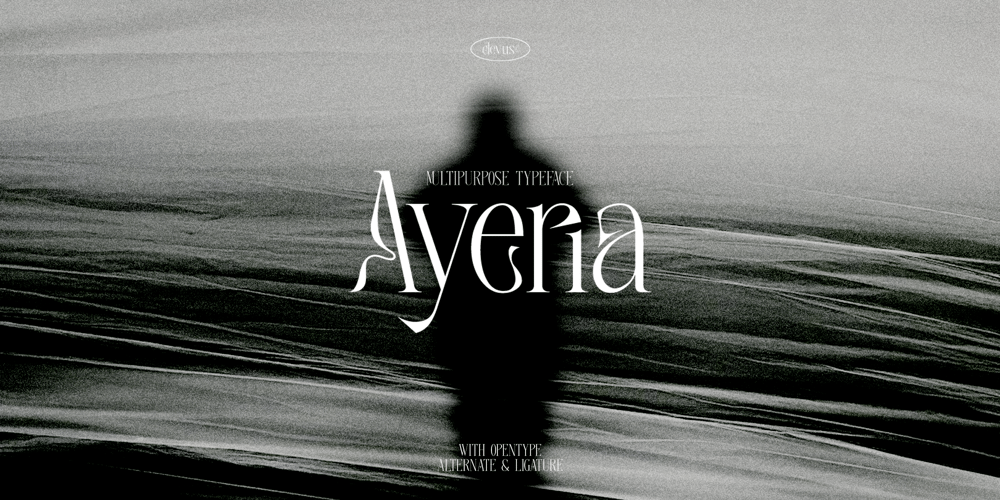
Ayeria Font Family was designed by Alfinu Zafir and published by Clevus. Ayeria contains 2 styles and family package options. Proudly present Ayeria is a Multipurpose serif font with a touch of elegant.Comes with alternatives and ligatures, this typeface is perfect for an elegant & luxury logo, book or movie title design, fashion brand, magazine, clothes, lettering, quotes, and so much more.Font Features :Ayeria Lettres, numbers, symbols, and punctuation 28 alternates and ligatures No special software required they may be used even in Canva, any basic program /website app that allows standard fonts That’s it, folks! Multilingual SupportLanguage Support: Danish, English, Estonian, Filipino, Finnish, French, Friulian, Galician, German, Gusii, Indonesian, Irish, Italian, Luxembourgish, Norwegian Bokmål, Norwegian Nynorsk, Nyankole, Oromo, Portuguese, Romansh, Rombo, Spanish, Swedish, Swiss-German, Uzbek (Latin).Follow My Shop For Upcoming Updates Including Additional Glyphs And Language Support. And Please Message Me If You Want Your Language Included or If There Are Any Features or Glyph Requests, Feel Free to Send me A Message.Have a Good Day!